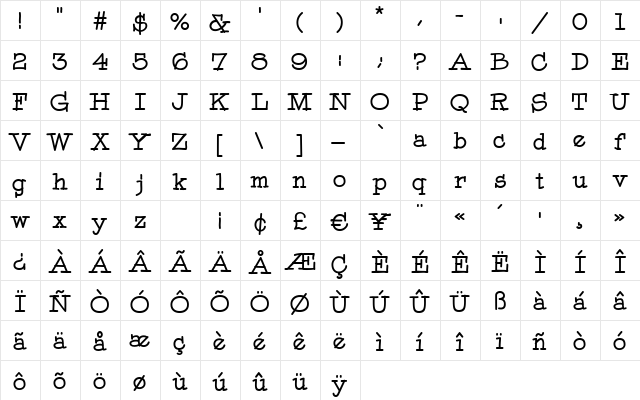
Gallo Serif
| Style | Serif |
Design Context for Gallo Typeface
Gallo brings classic typographic sensibility to the table — its serifs and measured letterforms reflect centuries of print heritage.
Pro Tip: Set Gallo with slightly loose tracking in headlines to let each letterform's detail read clearly at display sizes.